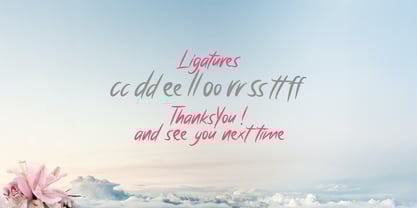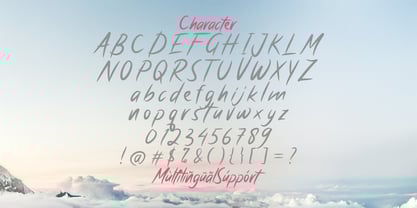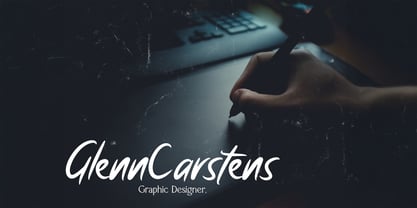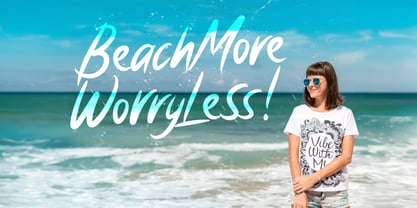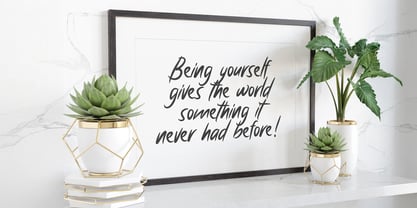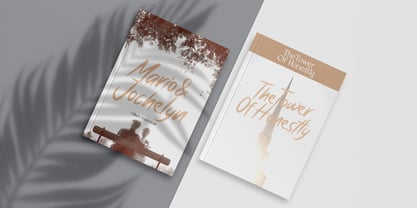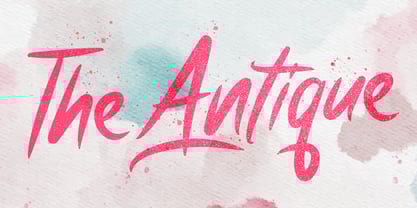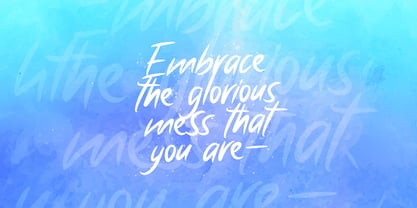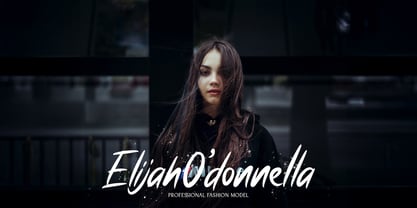
The Antique Font Family was designed by Virgiawan Listanto and published by Stringlabs Creative Studio. Antique contains 1 styles.
The Antique is a bold script font with a unique vintage look. It will elevate a wide range of design projects to the highest level, be it branding, headings, logos, labels, and much more!
Antique